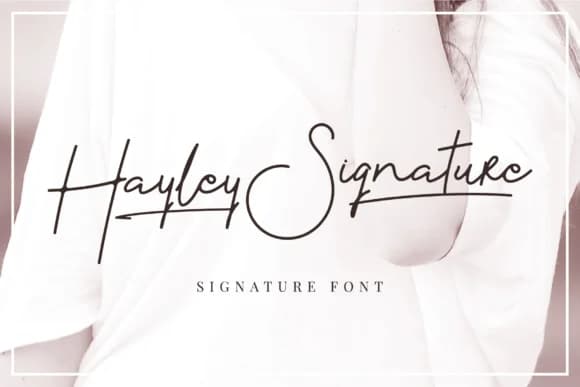
Hayley by yellowline is a signature script font that brings sophisticated elegance to upscale design work. With flowing letterforms and a carefully refined character set, this typeface excels where personality and visual polish matter equally. For elegant branding applications, Hayley works beautifully on luxury logo concepts and high-end cosmetics packaging that demand a personal touch. Wedding invitation suites benefit from its graceful, expressive curves, while boutique stationery sets come alive with Hayley's inherent sophistication. Social media templates for lifestyle brands, particularly those targeting premium audiences, gain immediate visual authority through this distinctive script. The font's swash alternates add real versatility for decorative elements, allowing designers to emphasize key words or create compelling headers without sacrificing overall legibility. This typeface strikes the essential balance between approachability and refinement that distinguishes successful luxury design from overwrought ornamentation. Its clean construction ensures readability even at smaller sizes, making it versatile for everything from product labels to intricate social graphics. Whether you're developing a complete brand identity or enhancing a single design asset, Hayley delivers the signature aesthetic that contemporary audiences recognize as intentional and professional. Discover how Hayley can enhance your creative work by adding it to your library on Creative Fabrica today.
Hayley Font is a script font that shines as a display or heading face. Pair it with a clean sans-serif or serif font for body text β the contrast creates a clear hierarchy while the two styles stay balanced and easy to read.
Hayley Font
by yellowline